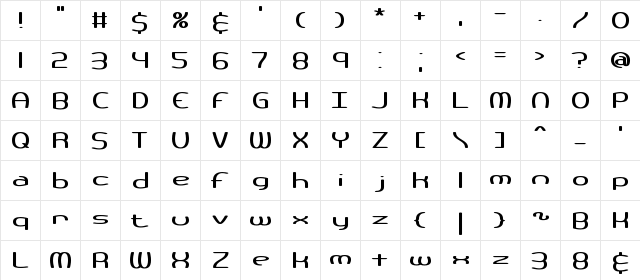
Pneumatics Wide BRK Normal
Design Context for Pneumatics Wide BRK Typeface
Pneumatics Wide BRK offers clean, dependable letterforms without strong stylistic allegiance, making it a practical choice for designers who need flexibility.